Two pixels of letter spacing can be the difference between text that reads smoothly and text that drives people away. So what is font spacing, exactly?
It’s the collection of adjustments that control distance between characters, words, and lines in any block of text. Whether you’re working in CSS, Figma, or Adobe InDesign, spacing decisions shape how readers experience every word on the page.
This guide breaks down the types of font spacing, how each one works in code and design tools, where accessibility standards draw the line, and how to avoid the mistakes that quietly wreck readability. Practical values included, not just theory.
What Is Font Spacing
Font spacing is the controlled adjustment of distance between characters, words, and lines within a block of text. It covers horizontal gaps between individual letters, the breathing room between whole words, and the vertical distance from one line of text to the next.
Not a single CSS property. Not one slider in Figma. It’s actually a collection of settings that work together to determine how text feels on screen or in print.
And a huge chunk of “getting text right” comes down to spacing. A font can be beautifully drawn, but if the spacing is off, readability drops fast. Your eye stumbles. You lose the reader before they finish the first paragraph.
Font spacing lives in CSS properties like letter-spacing, word-spacing, and line-height. It lives in the tracking and kerning panels inside Adobe Illustrator and InDesign. It even lives in the basic character spacing dialog in Microsoft Word.
Where it really matters, though, is in how your audience processes what you’ve written. Spacing determines whether someone reads comfortably or gives up after two sentences.
Types of Font Spacing
Four types of spacing fall under this umbrella. Each one controls a different dimension of how text appears and how easily it can be read.
| Spacing Type | What It Controls | Common Tool/Property |
|---|---|---|
| Letter spacing (tracking) | Uniform space between all characters | CSS letter-spacing |
| Kerning | Space between specific character pairs | CSS font-kerning |
| Word spacing | Distance between individual words | CSS word-spacing |
| Line spacing (leading) | Vertical distance between baselines | CSS line-height |
These four types interact with each other constantly. Tighten letter spacing without adjusting line height, and you’ll create a dense, claustrophobic block of text. Widen word spacing while leaving letter spacing tight, and individual words start floating apart from each other while their internal characters stay crammed together.
Good typography means balancing all four at once.
Letter Spacing vs. Kerning
This is the most common mix-up. Took me a while to internalize the difference too, honestly.
Letter spacing (also called tracking) applies a uniform adjustment across every character in a text block. If you set letter-spacing: 2px, every single gap between every pair of letters gets 2 extra pixels. No exceptions.
Kerning is pair-specific. It adjusts the space between two particular characters that look awkward next to each other. The classic example is “AV” or “To,” where the natural bounding boxes leave too much visual whitespace. Most professional fonts ship with built-in kerning tables that handle this automatically.
In CSS, these are two separate properties. letter-spacing controls tracking globally. font-kerning toggles whether the browser uses the font’s built-in kerning data (values: auto, normal, none).
When do you adjust one versus the other? Almost always, leave kerning to the font designer. Adjust letter spacing when you need a specific visual effect, like looser uppercase headings or tighter body text on a compact layout.
How Font Spacing Works in CSS
Four CSS properties handle the bulk of font spacing on the web. Each one targets a different layer of the text layout.
letter-spacing adds or removes horizontal space between characters. Positive values push letters apart. Negative values pull them closer. The value gets added on top of whatever spacing the browser already applies based on the font’s metrics.
word-spacing adjusts the gap between words specifically. Browsers already calculate a default word space from the font’s space character width, and this property modifies that default.
line-height controls the vertical rhythm between lines, which is the CSS equivalent of leading in traditional typesetting. It accepts unitless values (like 1.5), lengths, or percentages.
font-kerning tells the browser whether to use the OpenType kerning data baked into the font file. Set to normal to enable it, none to disable it.
The 2025 HTTP Archive Web Almanac found that web fonts now appear on roughly 88% of all websites, up from 87% the previous year. Nearly all of those sites are making spacing decisions through these exact properties, whether they realize it or not.
Font Spacing Units and Values
![]()
Three units dominate: px, em, and rem.
Pixels are fixed. Set letter-spacing: 1px and it stays 1px whether the font size is 12px or 48px. That rigidity becomes a problem on responsive layouts.
Em units scale relative to the element’s current font size. So letter-spacing: 0.05em on a 16px font gives you 0.8px of spacing, but on a 32px heading, it gives you 1.6px. This is what most web design professionals reach for because the spacing scales proportionally.
Rem units work similarly but reference the root font size instead. Useful when you want consistent spacing across different nesting depths.
One quirk worth knowing: most browsers can’t render sub-pixel letter spacing. If your computed value lands below 1px, you might see no spacing change at all, depending on the rendering engine.
Font Spacing in Design Tools
CSS isn’t the only place where spacing decisions get made. Designers working in visual tools make these calls long before any code gets written.
Figma: Letter spacing accepts percentage values (like “2%”) or pixel values. Line height can be set as a fixed value or “Auto.” Paragraph spacing is a separate field that controls the gap between text blocks.
Adobe Illustrator and InDesign: These use the terms “tracking” and “kerning” directly in their character panels. Tracking values are measured in thousandths of an em (so a value of 50 means 50/1000 of the current font size). InDesign also offers optical kerning as an alternative to the font’s metric kerning.
Google Docs and Microsoft Word: Both bury character spacing in a dialog box under “Font” settings. Word gives you “Expanded” and “Condensed” options measured in points.
Here’s the tricky part. Values don’t translate cleanly from one tool to the next.
A tracking value of 100 in Illustrator doesn’t mean letter-spacing: 100px in CSS. Figma’s percentage-based letter spacing doesn’t map directly to em values either (though it’s close, since Figma’s 1% is roughly 0.01em). Developers who don’t verify these conversions end up with text that looks nothing like what the designer intended.
Monotype introduced a variable font suite in 2023 that specifically addressed this problem. According to Global Growth Insights, 61% of UI/UX designers reported better design flexibility with variable fonts, partly because spacing parameters can be encoded directly into the font file itself.
How Font Spacing Affects Readability
Spacing and readability are directly linked. There’s no way around it.
Tight character spacing causes visual crowding, which is a perceptual phenomenon where letters start masking each other. Your brain struggles to isolate individual characters. This hits hardest at small font sizes and on low-resolution screens where each pixel counts.
Too-loose spacing creates the opposite problem. Words lose their shape. Readers can’t recognize word forms at a glance anymore, and reading speed drops because the eye has to process each character individually rather than perceiving words as unified chunks.
A 2024 study published in Education Sciences found that matching font and spacing settings to individual readers produced gains of up to 29 words per minute and 20% greater accuracy. The same research showed an average 35% change in reading speed between a reader’s best-fit and worst-fit font configuration.
For body text on screens, a line height between 1.4 and 1.6 is the range where most people read comfortably. The adoc-studio typography guide cites research showing that proper typography can boost reading accuracy by up to 20% and cut eye strain by 30%.
These aren’t abstract numbers. They’re the difference between someone reading your content and someone bouncing.
Font Spacing and Accessibility Standards
WCAG Success Criterion 1.4.12 (Text Spacing) is the one to know here. It’s an AA-level requirement, which means it applies to most sites pursuing accessibility compliance.
The criterion doesn’t force you to use specific spacing values. What it requires is that your content stays readable and functional when users override your styles to these minimums:
- Line height at least 1.5x the font size
- Paragraph spacing at least 2x the font size
- Letter spacing at least 0.12x the font size
- Word spacing at least 0.16x the font size
A landmark PNAS study by Zorzi et al. (2012) showed that wider letter spacing enabled dyslexic children to read 20% faster while making half as many errors. This is with no training at all, just a change in spacing.
Dyslexia affects between 3% and 7% of the population. If your layout breaks when users increase text spacing, you’re locking out millions of people.
Test it yourself. Use a browser extension like Stylus to apply WCAG 1.4.12 spacing values to your site. If text overflows its containers, if buttons disappear, if content gets clipped, those are failures. The fix is usually straightforward: use relative units (em or rem), avoid fixed-height containers for text, and let your layout breathe.
Common Font Spacing Mistakes
Most spacing problems come from the same handful of errors. And they’re surprisingly easy to make, even if you’ve been doing this for years.
Adding Letter Spacing to Lowercase Body Text
There’s a famous (cleaned-up) quote from type designer Frederic Goudy: anyone who would letter-space lowercase would steal sheep.
Bit dramatic. But the point holds.
Lowercase body text is designed to be read at its default spacing. The letter shapes, the counters, the way ascenders and descenders interact, it all assumes the spacing baked into the font. When you add extra letter spacing, you break the visual rhythm that makes words recognizable as shapes rather than strings of individual characters.
Ignoring Built-In Kerning Tables
What happens: A developer sets a flat letter-spacing value across all text, which overrides the font’s carefully designed kerning pairs.
Why it’s bad: Kerning tables exist because certain character combinations (AV, To, LT, Ty) need custom spacing to look right. A global letter-spacing value treats every pair the same and removes those subtle adjustments.
The CSS font-kerning: normal property should be left on in most cases. Only disable it if you have a specific reason.
Using Absolute Pixel Values for Spacing
A letter-spacing: 2px looks fine on a 16px body font. It looks ridiculous on a 48px heading.
The HTTP Archive’s 2025 data shows roughly one-third of all websites now exclusively self-host their fonts, with many using responsive CSS approaches. If you’re still setting spacing in fixed pixels, your text breaks the moment someone views it on a different screen size or zooms in.
Use em values. Your future self will thank you.
Not Testing Across Typefaces
Every typeface has different built-in metrics. A serif font like Georgia may need less letter spacing than a geometric sans-serif like Futura. The x-height, character width, and default sidebearings all differ from font to font.
Three-quarters of Fortune 500 companies use sans-serif fonts for their logos, according to Toner Buzz research. But the spacing that works for one sans-serif won’t necessarily work for another. Always test your spacing values against the specific font you’re using, not just a generic default.
Font Spacing for Headings vs. Body Text
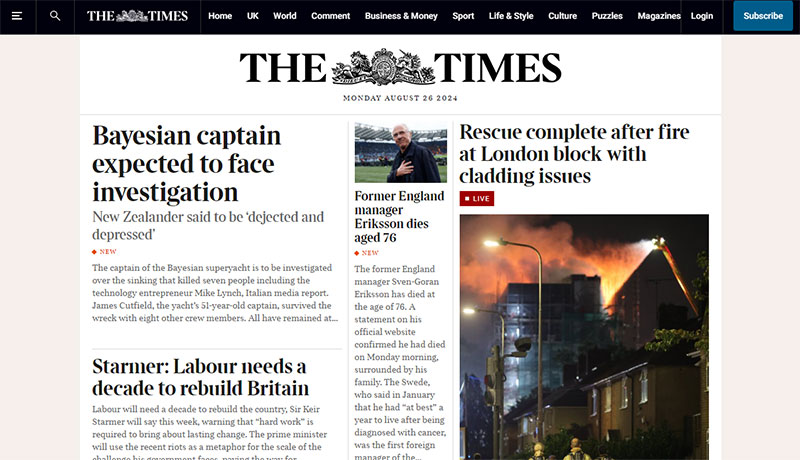
Spacing rules flip depending on text size. What works for a 16px paragraph will look wrong on a 48px heading, and the other way around.
Google’s Material Design 3 type scale makes this clear. Their Roboto guidelines use negative tracking (-0.025em) for large display text at 57px, zero tracking for medium headlines, and positive tracking (+0.05em) for small 12px labels. That’s not random. It follows a pattern most professional type systems share.
| Text Role | Typical Size | Spacing Direction | Why |
|---|---|---|---|
| Display / Hero | 36px–57px | Negative (tighter) | Large letters look gappy at default spacing |
| Headings | 20px–32px | None to slightly negative | Balance between readability and compactness |
| Body text | 14px–18px | Default or very slight positive | Optimized by the font designer already |
| Captions / Labels | 10px–12px | Positive (looser) | Prevents character crowding at small sizes |
Why does this happen? At larger sizes, the whitespace between characters becomes more visible to the eye. The gaps feel exaggerated. Tightening the spacing pulls the letterforms into a cohesive word shape again.
At small sizes, the opposite problem shows up. Characters crowd together and start blending visually. Adding a bit of positive letter spacing (even just 0.01 to 0.05em) gives each character room to be individually recognized.
Uppercase Headings Need Extra Attention
Butterick’s Practical Typography recommends adding 5–12% extra letterspacing to all-caps and small-caps text. Always.
Uppercase letters were designed to sit next to lowercase. When you force them all together, the default spacing looks too tight because every character has a similar boxy shape. There’s no ascender/descender variation to create natural breathing room.
Adam Wright Design suggests starting at +0.1em for uppercase subheadings and capping it at 0.3em maximum. Going past that actually hurts readability instead of helping it.
How Variable Fonts Handle This Automatically
The HTTP Archive’s 2024 Web Almanac found that variable font usage reached 33% of desktop pages and 34% of mobile pages, up from 29% and 30% the year before.
Some of these variable fonts include an optical size axis (opsz). When supported, the browser automatically adjusts glyph shapes, stroke weights, and spacing based on the rendered font size. Thicker strokes and wider spacing at small sizes. Finer details and tighter spacing at large sizes. No manual CSS needed.
Apple’s SF Pro actually ships as two variants: SF Pro Display (optimized for headlines) and SF Pro Text (optimized for body). The spacing behavior is baked right into each variant’s metrics. Google took a similar approach with Roboto’s type scale, where letter spacing values shift from negative to positive as font sizes decrease.
How to Choose the Right Font Spacing
There’s no single correct set of values. But there is a process that consistently gets good results.
Start with the Font’s Defaults
Well-designed fonts ship with spacing that already works for their intended use case. A body text font like Inter or Source Sans has its character spacing calibrated for sustained reading at 14–18px.
Don’t touch anything until you’ve seen the defaults in context. Load the font. Set it at the size you need. Look at it on the screen you’re targeting. Most of the time, default spacing for body text is already close to where it should be.
Butterick’s Practical Typography makes this point directly: if you use well-designed fonts, they’re already calibrated, and you won’t need major adjustments.
Adjust Incrementally
Headings: Try -0.01em to -0.02em for tighter display text. Don’t go past -0.03em.
Uppercase subheadings: Start at +0.1em. Keep it under +0.25em.
Body text: Leave it alone. If you absolutely must adjust, stay within +/- 0.01em.
Small text below 13px: Add slight positive spacing, around +0.01em to +0.03em, to prevent crowding.
These values come from the WebDesignerDepot guide, which tested them across multiple popular typefaces including Roboto and SF Pro.
Test Across Contexts
A spacing value that looks polished on your 27-inch monitor might fall apart on a phone screen.
Check your text at multiple viewport widths. Open Chrome DevTools and toggle between device sizes. The HTTP Archive’s 2025 data shows Google Fonts still appears on roughly 54% of desktop sites but only 47% of mobile, partly because mobile rendering behaves differently and some developers are switching to self-hosted solutions for tighter control.
Browser rendering engines don’t all treat sub-pixel spacing the same way. Firefox, Chrome, and Safari can produce slightly different results with the same CSS values. If precision matters (and for brand typography it usually does), test in all three.
When to Leave Spacing Alone
Honestly? Most of the time.
Body text in a blog post, article, or documentation page rarely benefits from custom letter spacing. The font’s built-in metrics plus a sensible line-height of 1.5 handles it.
Where spacing adjustments actually matter:
- Uppercase headings and navigation labels
- Display fonts at hero sizes (40px+)
- Condensed typefaces used at small sizes
- Text over images or gradient backgrounds where readability is already compromised
If you’re tweaking letter spacing on a 16px paragraph of regular-weight body text, you’re probably solving a problem that doesn’t exist. Pick a better font instead, or adjust line height first. Those two changes almost always have a bigger impact on readability than letter spacing does.
Shopify’s typography guidelines echo this: design tools like Figma handle character spacing automatically with a zero-percent default, and in most body text scenarios, that default is exactly where it should be.
FAQ on What Is Font Spacing
What is the difference between letter spacing and kerning?
Letter spacing (tracking) applies a uniform adjustment across all characters in a text block. Kerning adjusts the gap between two specific characters, like “AV” or “To.” Most fonts include built-in kerning tables that handle pair-specific spacing automatically.
What CSS property controls font spacing?
The letter-spacing property handles space between characters. Use word-spacing for gaps between words and line-height for vertical distance between lines. All three accept values in px, em, or rem units.
What is the best letter spacing for body text?
Leave it at the font’s default in most cases. Well-designed typefaces like Inter or Roboto are already optimized for body sizes (14–18px). If you must adjust, stay within +/- 0.01em to avoid breaking the natural reading rhythm.
Does font spacing affect readability?
Directly. A 2024 Education Sciences study found up to a 35% change in reading speed between best-fit and worst-fit spacing configurations. Too tight causes visual crowding. Too loose breaks word shape recognition.
What are the WCAG requirements for text spacing?
WCAG Success Criterion 1.4.12 requires that content stays functional when users override spacing to: line height at 1.5x font size, paragraph spacing at 2x, letter spacing at 0.12x, and word spacing at 0.16x.
Should I use pixels or em units for letter spacing?
Use em units for responsive layouts. They scale proportionally with font size, so spacing stays consistent across screen sizes. Pixel values are fixed and break when text is resized or viewed on different devices.
How does font spacing work in Figma?
Figma’s character panel lets you set letter spacing as a percentage or pixel value. Line height can be “Auto” or a fixed number. These values don’t translate directly to CSS, so developers need to convert them manually during handoff.
Does wider letter spacing help people with dyslexia?
Research published in PNAS by Zorzi et al. showed dyslexic children read 20% faster with wider spacing while making half as many errors. The benefit comes from reducing visual crowding between characters that interferes with letter recognition.
What letter spacing should I use for uppercase headings?
Add positive spacing, typically between +0.05em and +0.25em. Uppercase letters have uniform shapes that look cramped at default spacing. Butterick’s Practical Typography recommends 5–12% extra letterspacing for all-caps text.
What is leading in font spacing?
Leading is the vertical distance between text baselines, originating from strips of lead placed between metal type lines. In CSS, it’s controlled through the line-height property. A value between 1.4 and 1.6 works well for most body text.
Conclusion
Understanding what is font spacing gives you control over how people experience your text. Every CSS property, every Figma slider, every OpenType kerning table ties back to one thing: making content readable.
The numbers back this up. Proper spacing can shift reading speed by 35%. It determines whether your site meets WCAG 1.4.12 or locks out users with dyslexia and low vision.
Start with your font’s built-in defaults. Use em units for responsive scaling. Tighten headings slightly, loosen small labels, and leave body text alone unless you have a clear reason not to.
Font spacing isn’t glamorous. But it’s the difference between a typographic hierarchy that works and one that quietly fails your readers on every page.